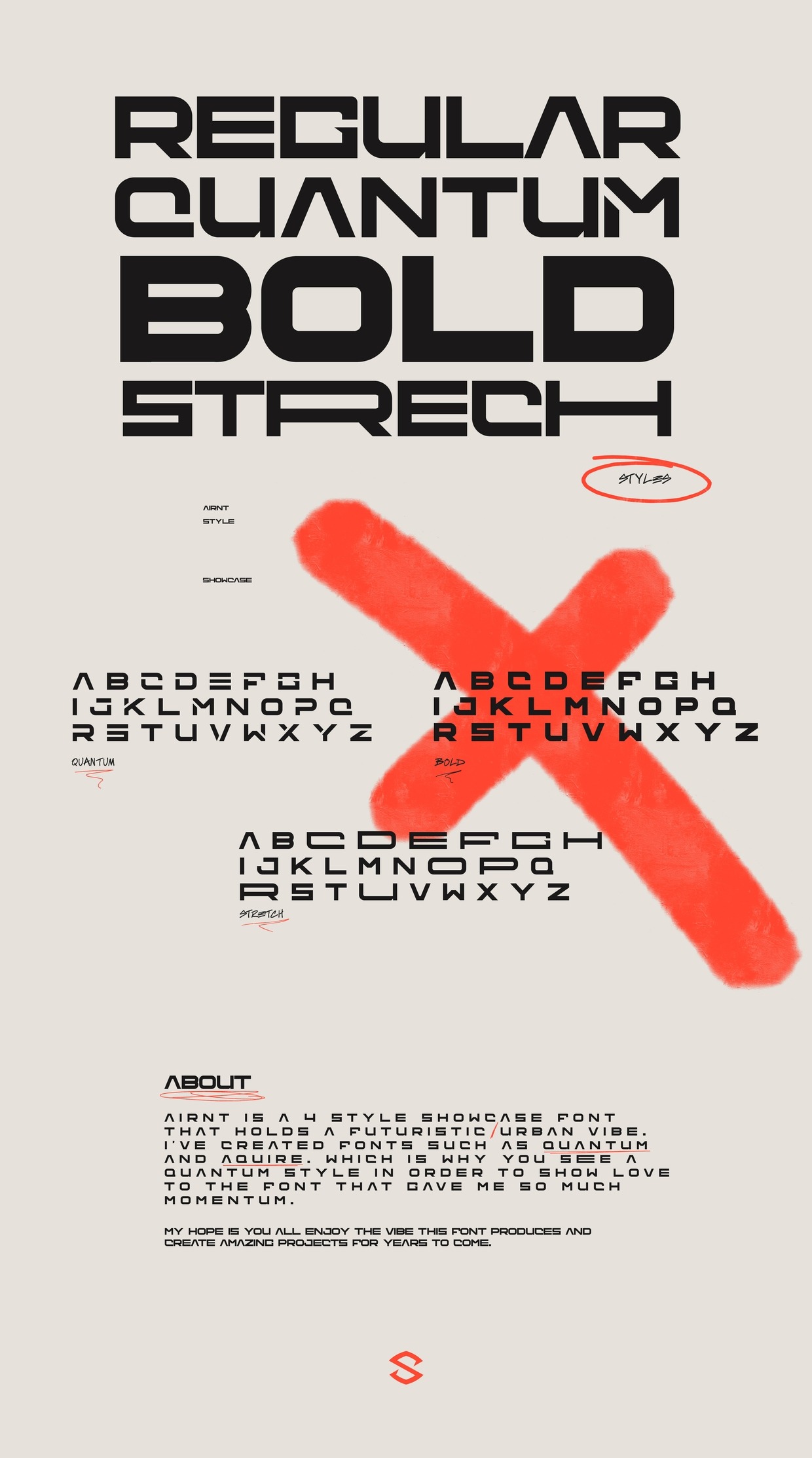
AIRNT Font
AIRNT Sans Serif Font
This is a sans serif typeface created by Sesohq with a sharp shape that is very impressive to have. It is suitable for making text quotes, documents, websites, logotypes, sports-themed designs, magazines, other creative business designs, etc.